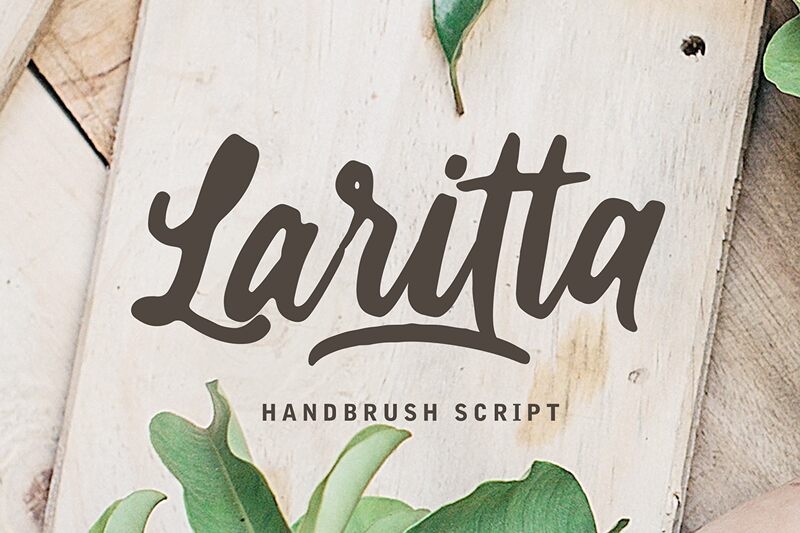
Laritta, a captivating brush font designed by Wahyu Andi, combines elegance with a touch of playfulness. This semi-bold typeface is perfect for projects that demand attention and creativity. Its fluid strokes and natural curves make Laritta an ideal choice for branding materials, including logos and packaging designs. Additionally, this versatile font is well-suited for social media graphics, wedding invitations, and artistic posters. Whether you're looking to add a hint of sophistication or a dash of whimsy to your project, Laritta is the brush font that effortlessly expresses your unique style.